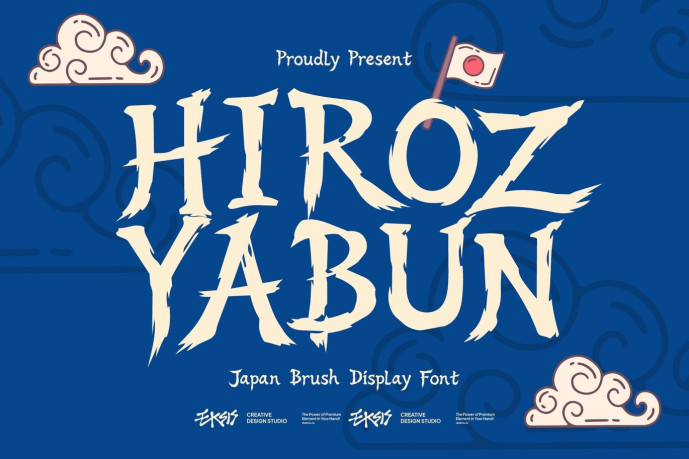
Hiroz Yabun Font
Hiroz Yabun Font – This typeface features aggressive and expressive brushstrokes that mimic traditional Japanese calligraphy. The letterforms are characterized by their jagged, irregular edges and tapered, sharp endings, creating a sense of raw energy and movement. Each character has high stroke contrast, with thick, bold downstrokes and thin, wispy horizontal lines. The overall aesthetic is striking and impactful, making it ideal for headlines, posters, and branding projects that require a strong cultural or artisanal feel. It captures the essence of hand-painted ink work with a modern digital touch.